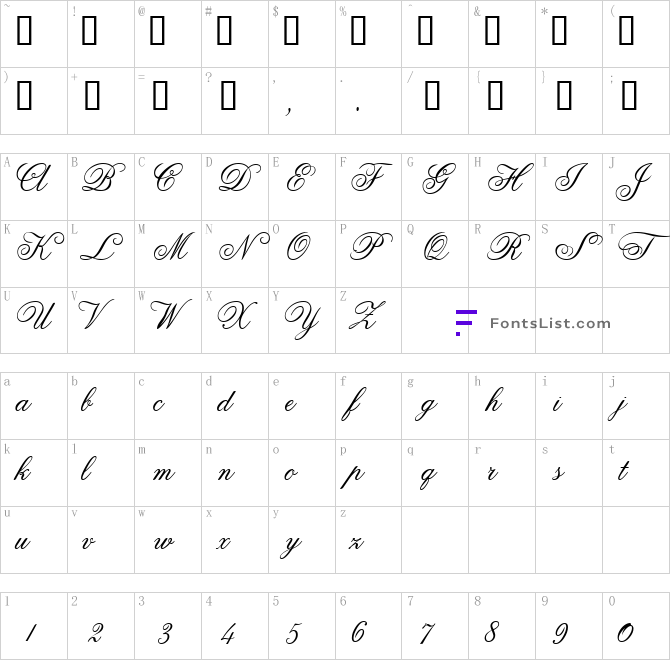
- Font Name:Anglia Script Standard
- Full Name:Anglia Script Standard
Anglia-Script-Standard.ttf is a very beautiful artistic font, Anglia-Script-Standard.ttf is widely used in the design and printing of various books and pictures,Anglia-Script-Standard.ttf has a strong visual impact,Anglia-Script-Standard.ttf is a commonly used font in newspapers, magazines and books, and is used in posters, e-commerce Poster design, store design, logo design, font design and other fields.Anglia-Script-Standard.